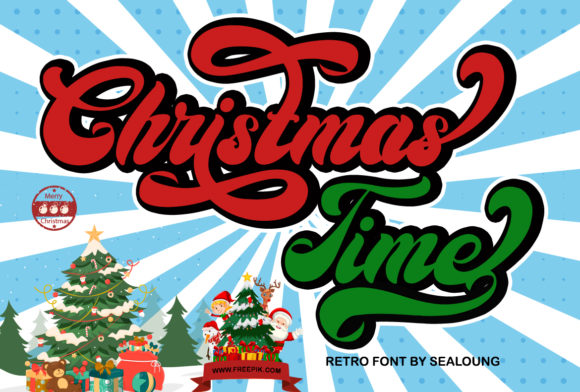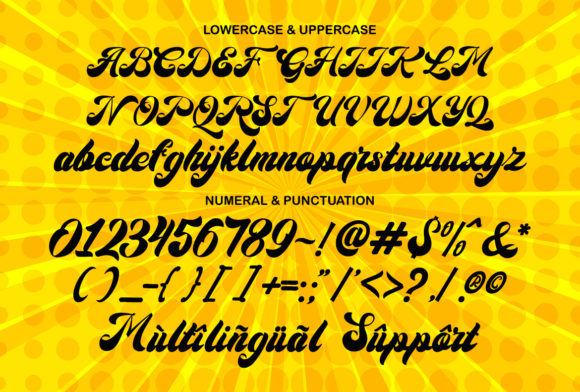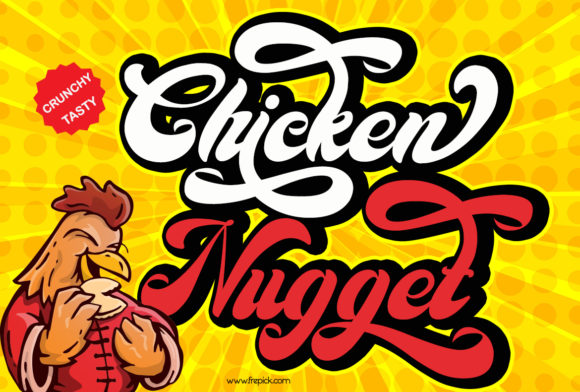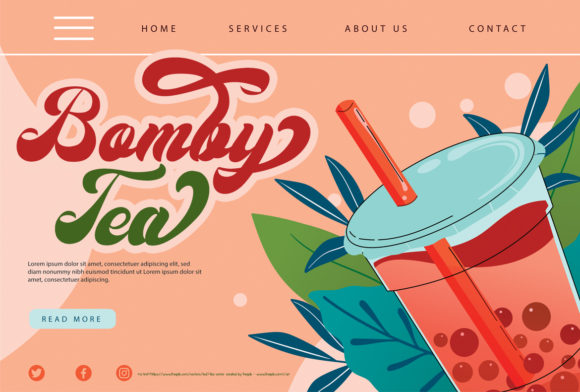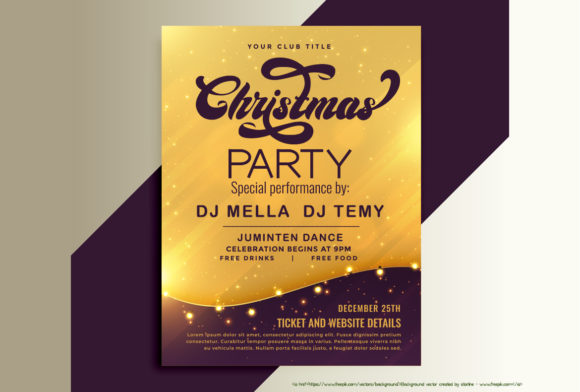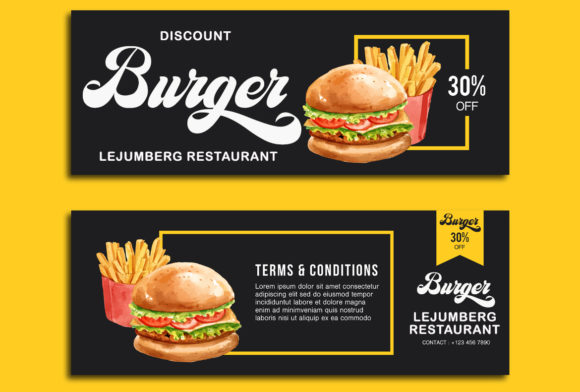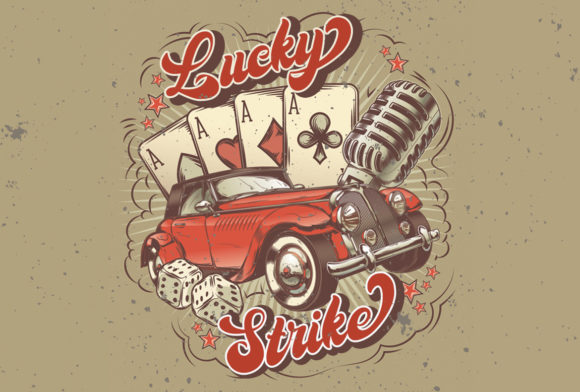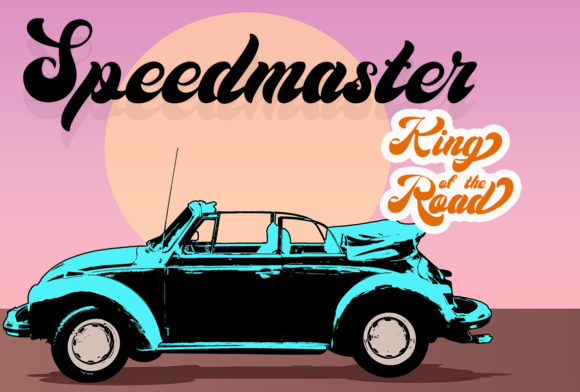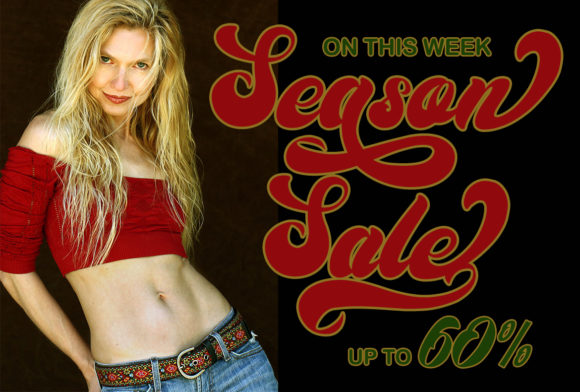
Christmas Time Font
About Christmas Time Font
Christmas Time is a flowing and festive handwritten font. With a retro style and a warm feel, this font will make each of your holiday cards and designs look outstanding!